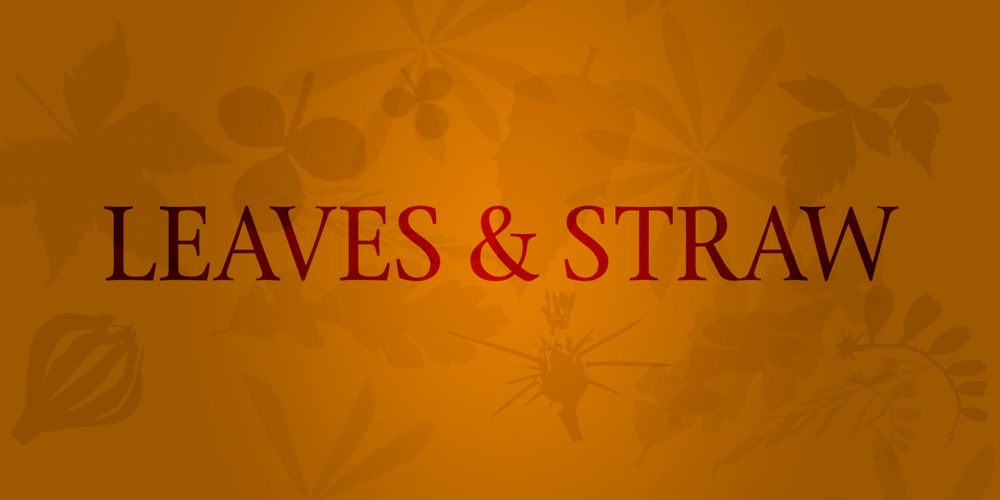
Leaves & Straw
Leaves & Straw font
Leaves & Straw Font Family was designed by Sumner Stone and published by Stone Type Foundry. Leaves & Straw contains 4 styles and family package options. These ornaments are made from plants which grow on Alphabet Farm, the place where Stone Type Foundry is located.